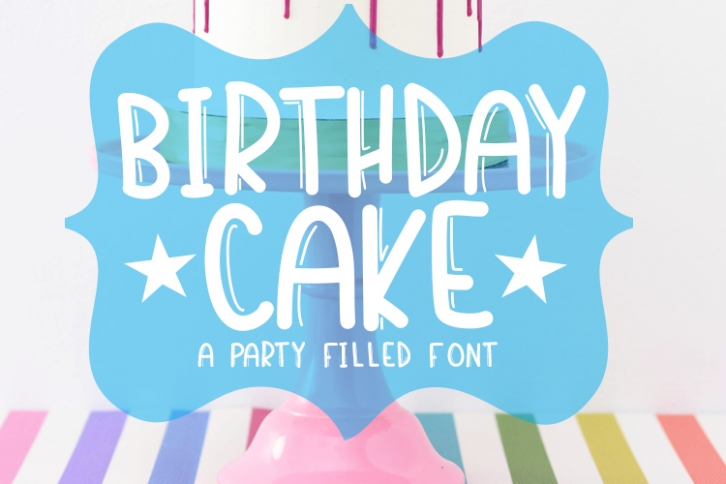
Birthday Cake is a great font that was designed by Nicole Forbes Designs. Imagine the amount of combinations you can create using this font! The archive is 1.37 MB and it was released on June 16, 2019. Birthday Cake looks beautiful on wedding invitations, greeting cards, logos, posters, labels, t-shirt designs, logos, business cards and is perfect for use in ink or watercolor works, fashion, magazines, packaging and food menus, children's books and more!